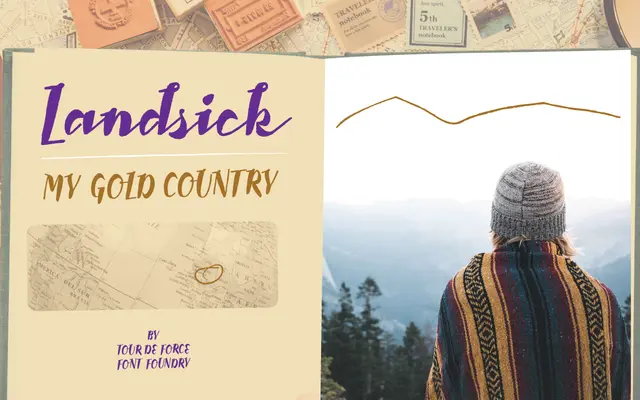
Landsick
Tour de Force · Dušan Jelesijević · 2018
A single-weight casual script by Dušan Jelesijević, released in 2018 with extended Latin coverage across 102 languages.
A lively handwritten script in one weight, designed by Dušan Jelesijević and first released in March 2018. The 370-glyph set covers extended Latin for 102 languages and includes standard ligatures. Its informal, energetic character makes it suitable for branding, packaging and display contexts where a handcrafted feel is wanted.
Classified as Script by the foundry; a single-weight casual handwritten script with lively, informal letterforms suited to display and branding use.